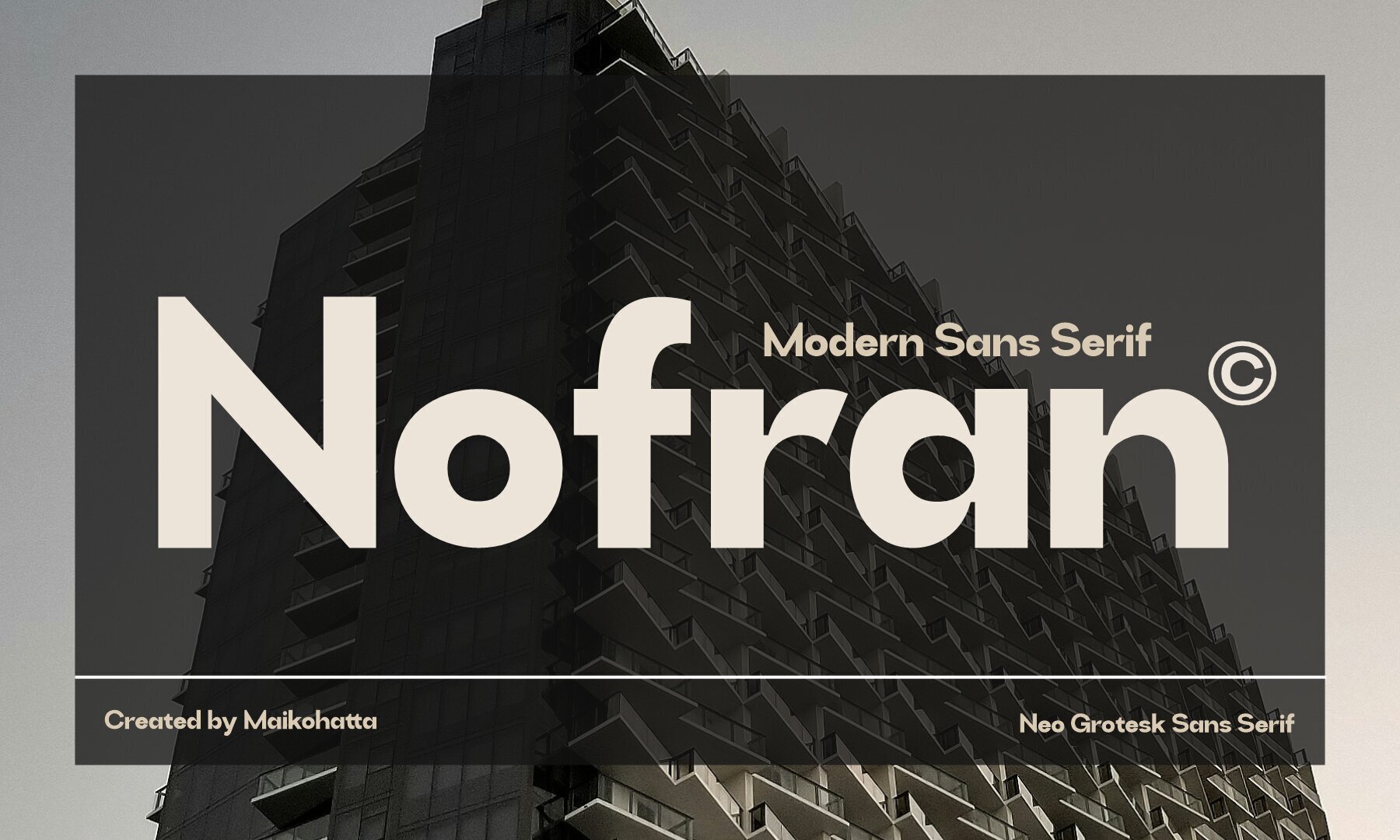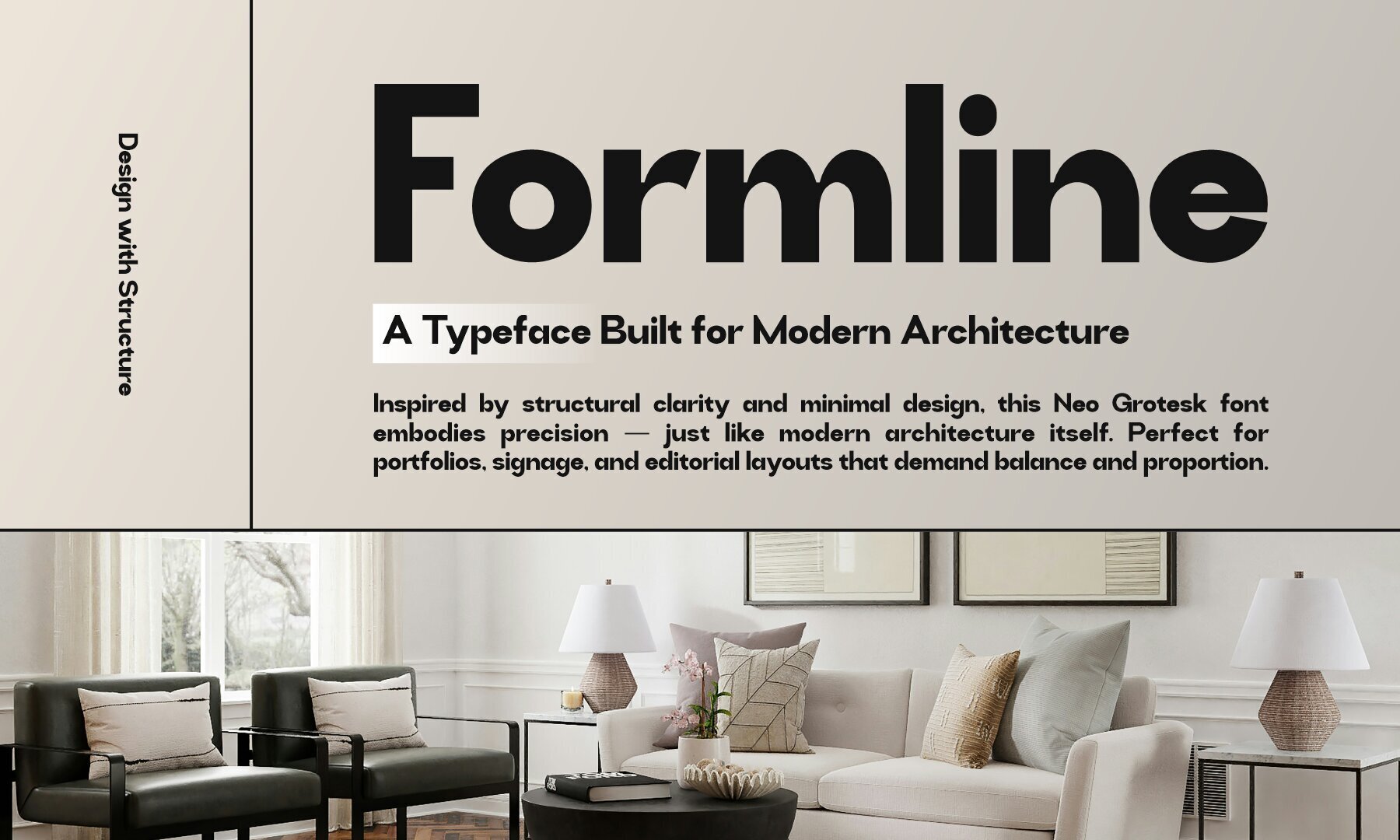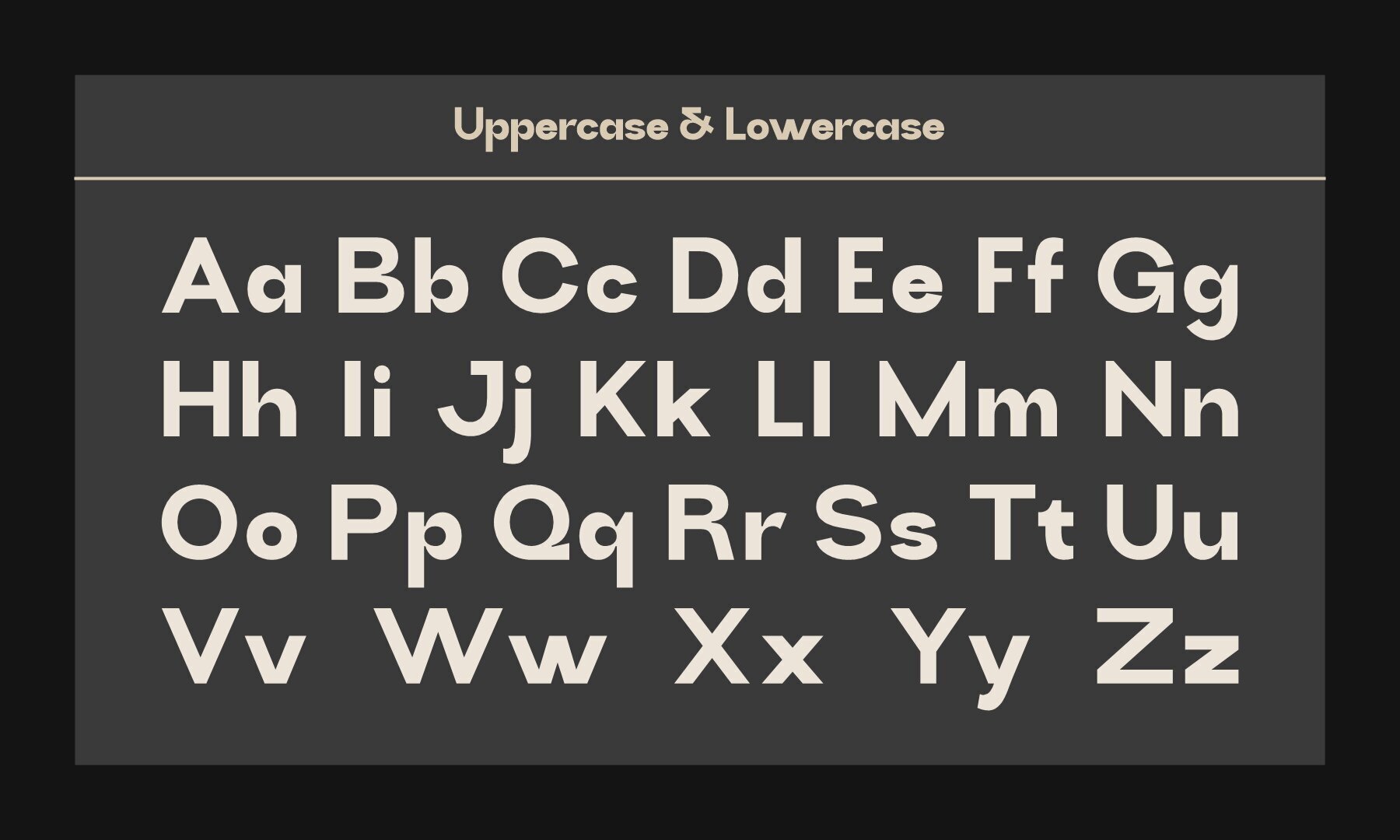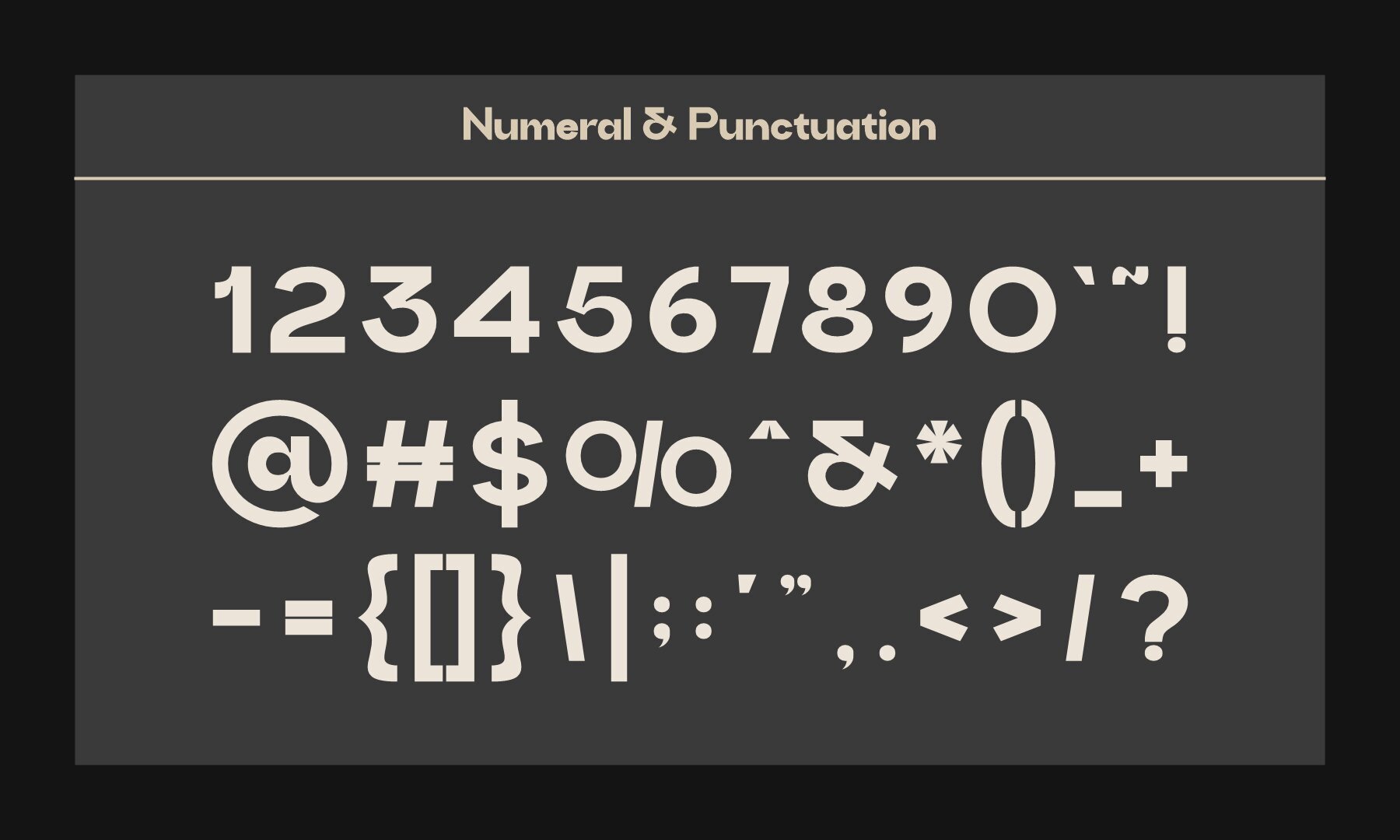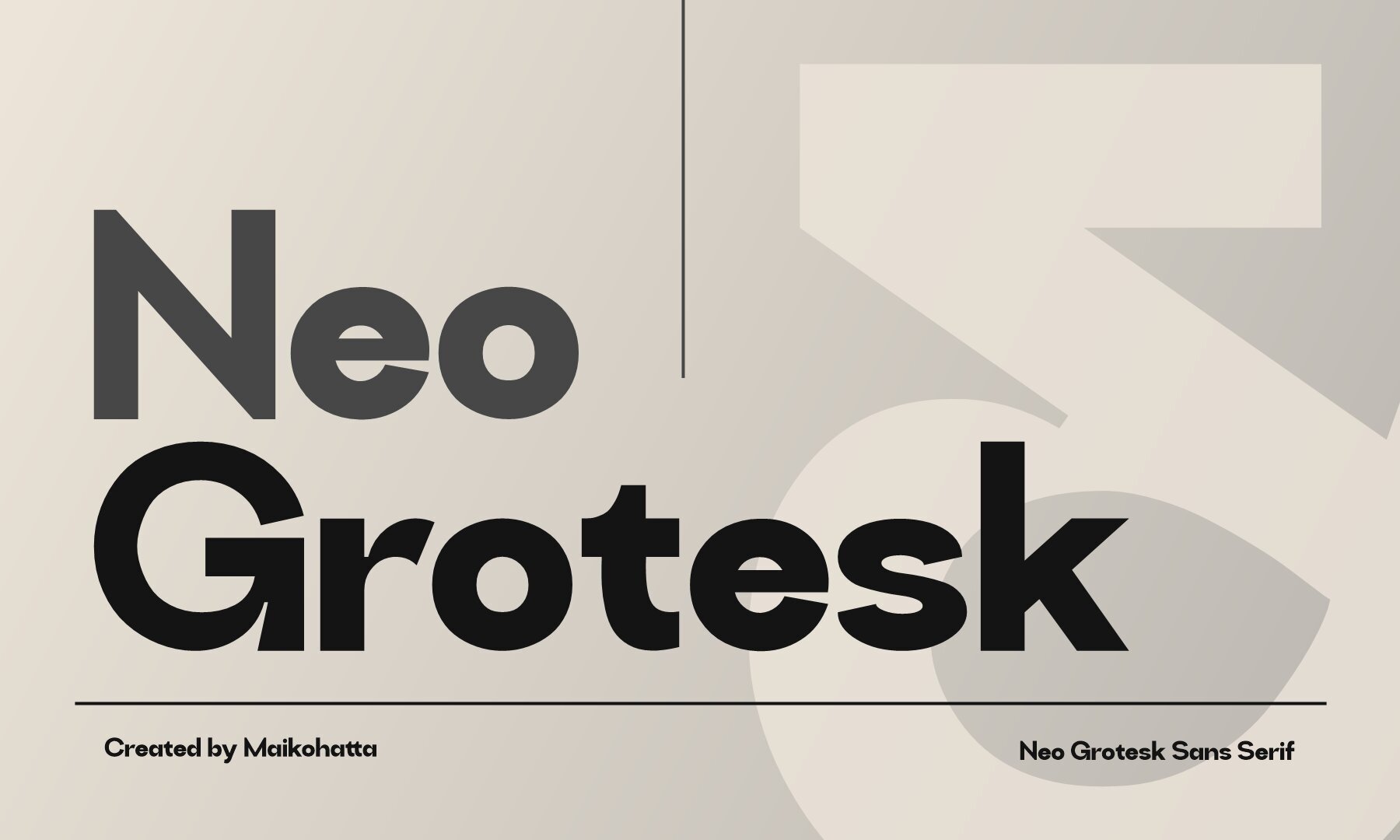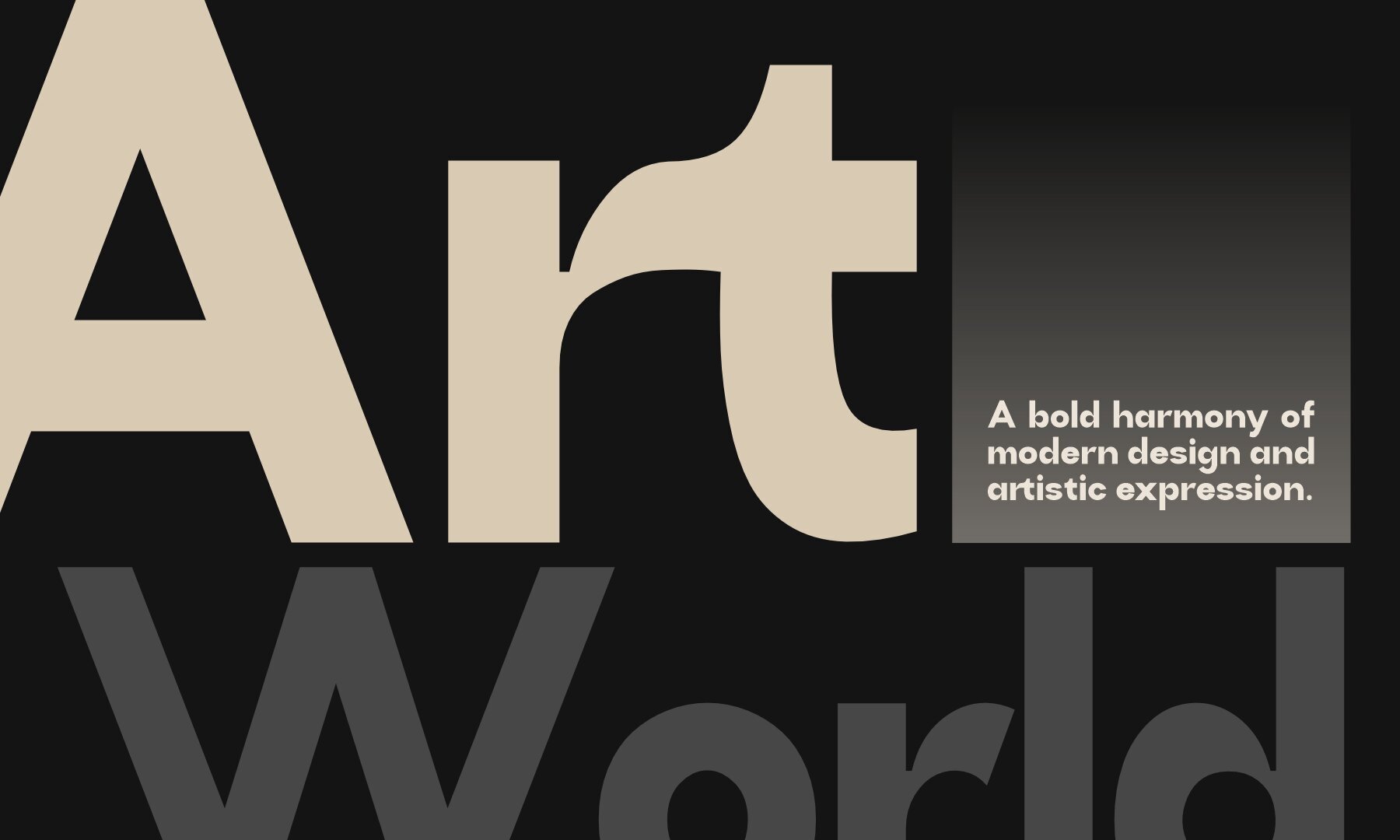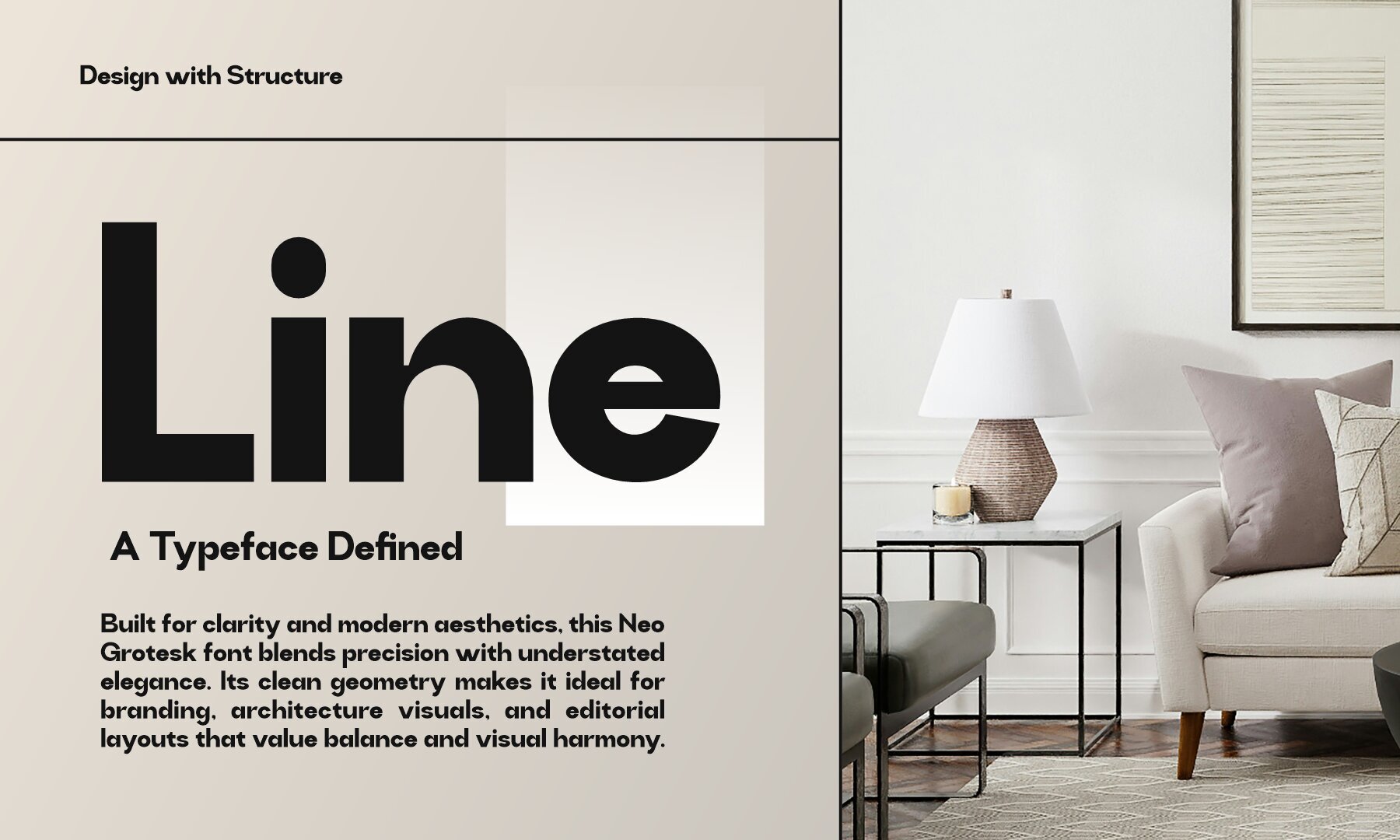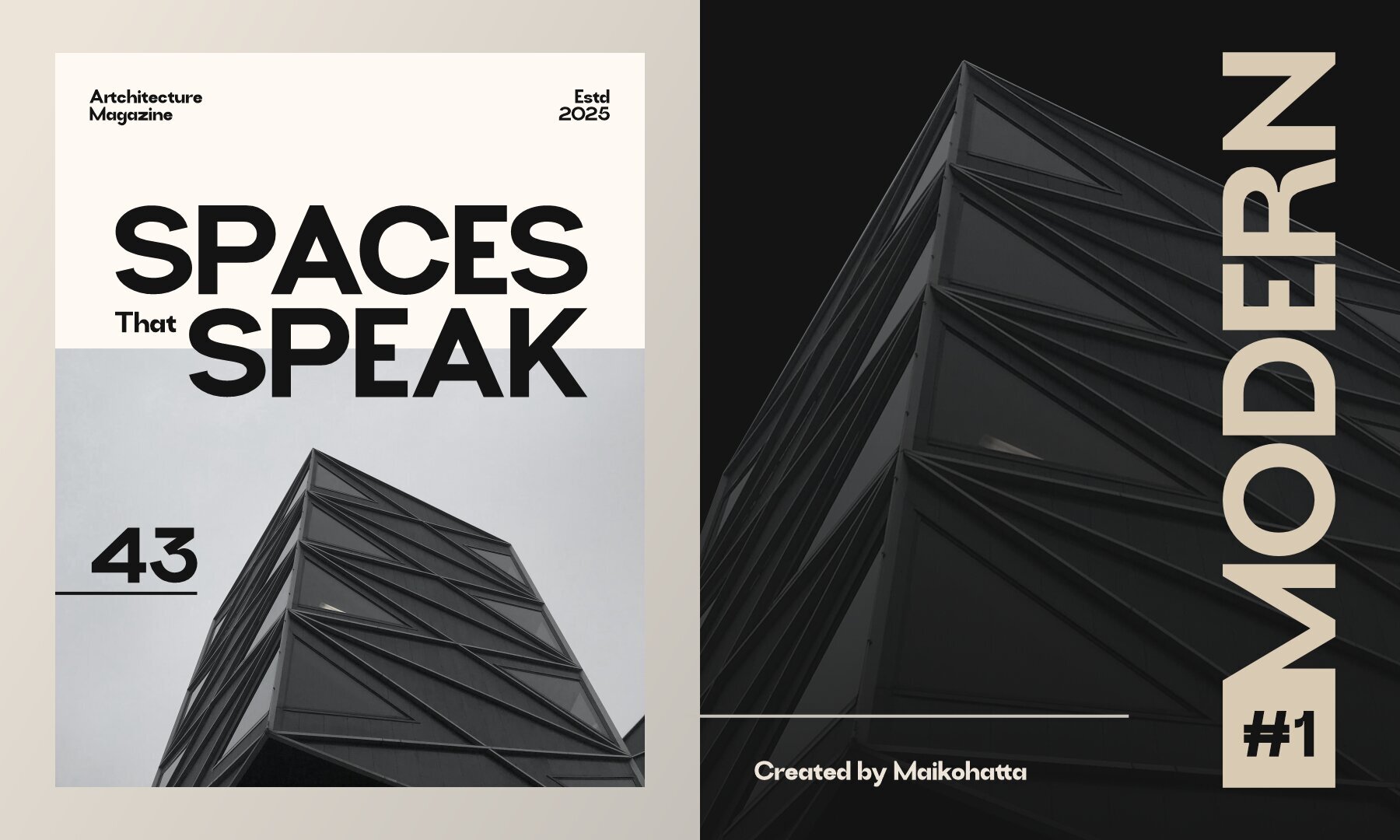
Nofran Font
Nofran
Nofran offers a sophisticated approach to modern sans serif typography, drawing on the principles of geometric design and neo-grotesk influence. This typeface is tailored to branding, editorial layouts, logos, and digital interfaces, capturing a balance between contemporary clarity and professional restraint. Its structure reflects careful attention to detail, giving projects an adaptable style suited for both commanding headlines and understated body copy. The typeface features smooth curves and precise letterforms, emphasizing simplicity and refined character. Designers will appreciate its versatility across applications, while its confident lines ensure readability and visual distinction in print and on screen.Nofran: Modern Neo-Grotesk Sans Serif Typeface